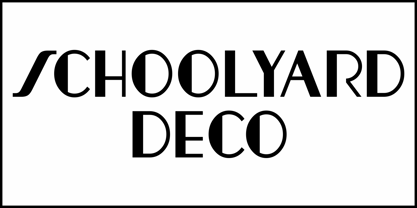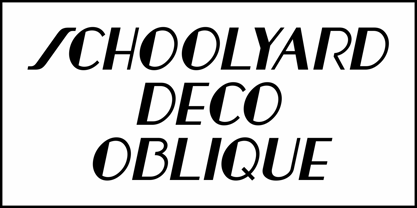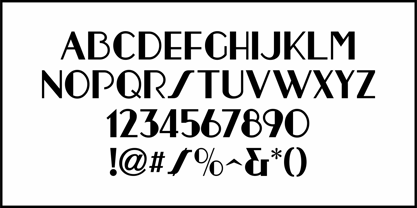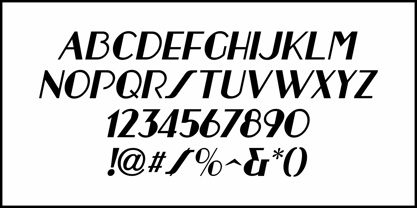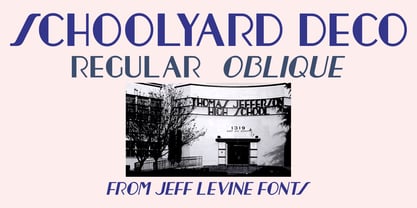
Schoolyard Deco JNL
by Jeff Levine
An old photograph of Thomas Jefferson High School in Los Angeles showed the school's name attached to the building in fabricated letters with an Art Deco thick-and-thin design.
The school was built in 1916. After an earthquake destroyed the original campus in 1933, the complex was rebuilt in 1935 and the sign was installed in 1936.
This is now available as Schoolyard Deco JNL, in both regular and oblique versions.